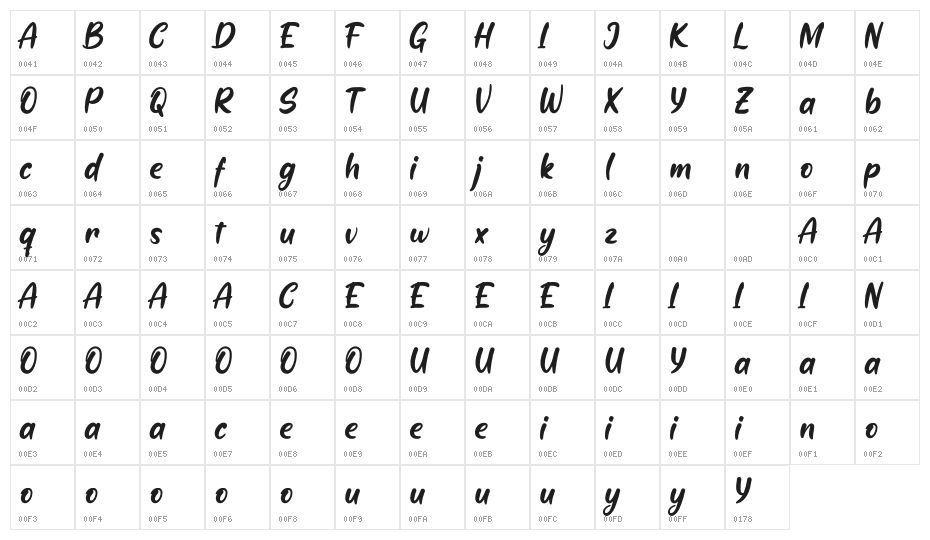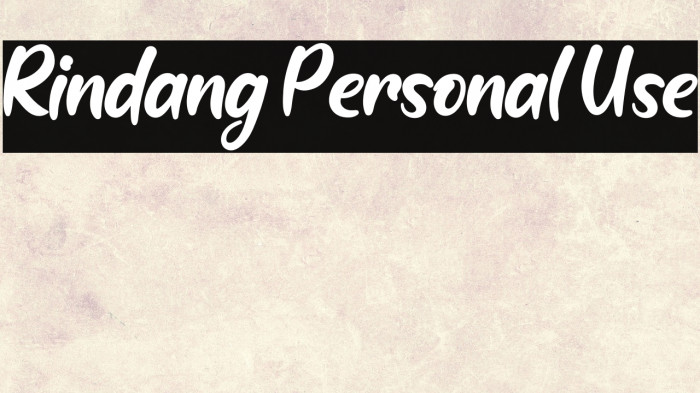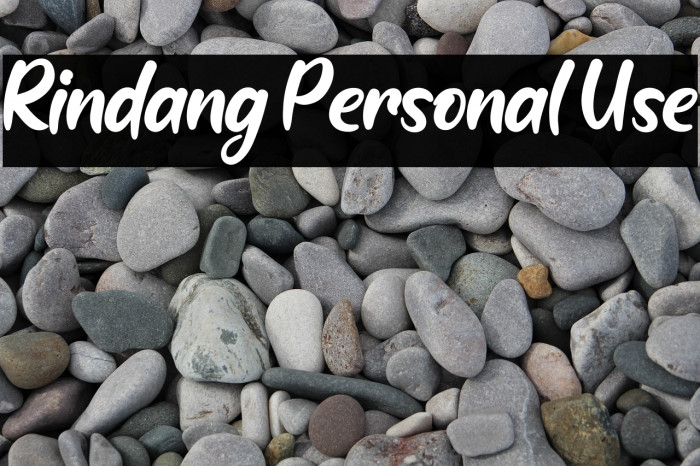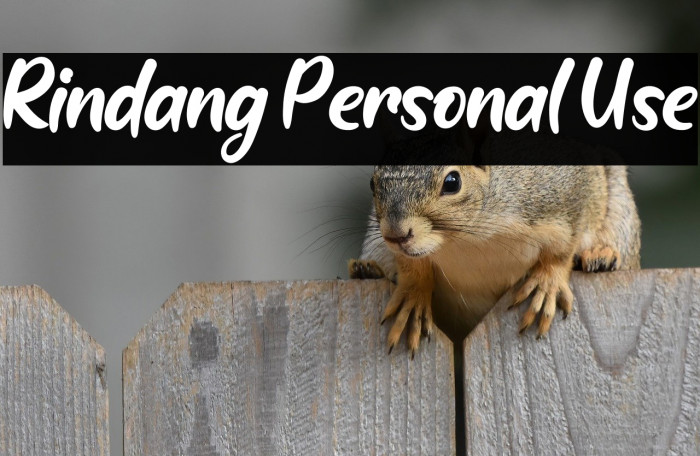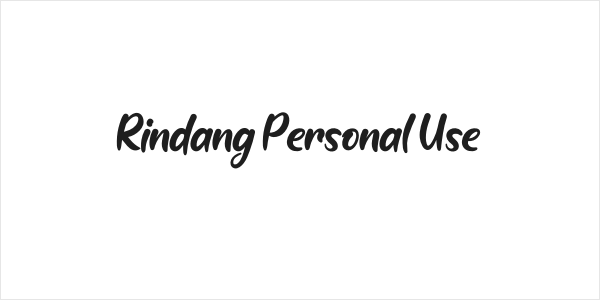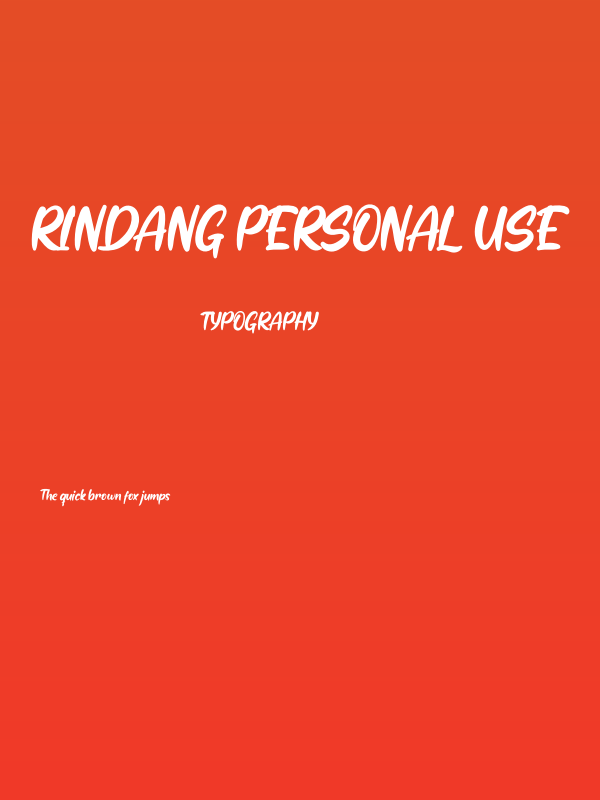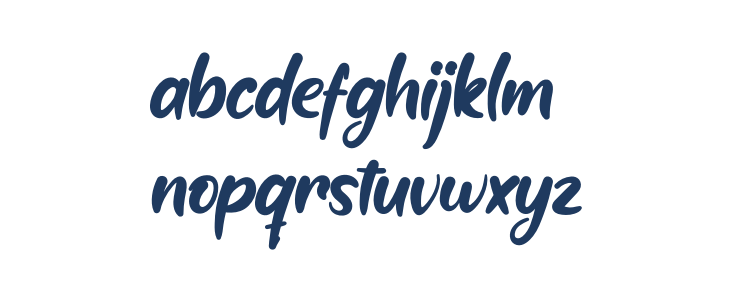
Rindang Personal Use Font
Rindang Personal Use Description
This font features a bold, cursive style with a modern flair. The uppercase letters are crafted with smooth, flowing lines that give a sense of movement and elegance. The lowercase letters maintain this fluidity, with some characters like 'g' and 'y' having distinctive loops that add to the font's charm. The overall appearance is dynamic and lively, making it suitable for projects that require a personal touch. The characters are well-spaced, ensuring readability while maintaining a cohesive look. This font exudes a sense of creativity and expressiveness, ideal for making a statement.
| Proposed Projects | Ideal for branding, invitations, greeting cards, and creative projects that require a personal and artistic touch. |